Ready to discover the best fonts for tattoos and nail down a style that speaks to you for the long haul? Let’s roll up our sleeves and get started on a step-by-step tutorial for finding a font that fits your vibe. Whether you’re into sleek calligraphy or bold Gothic letters, you’re about to learn how to pick a style that ages gracefully.
Identify your style
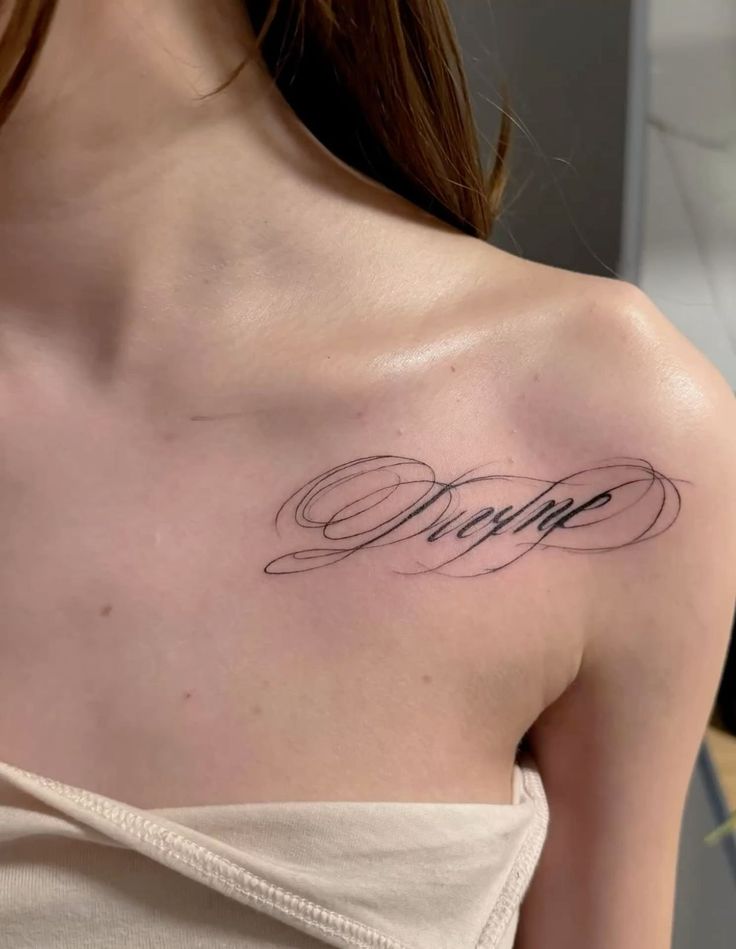
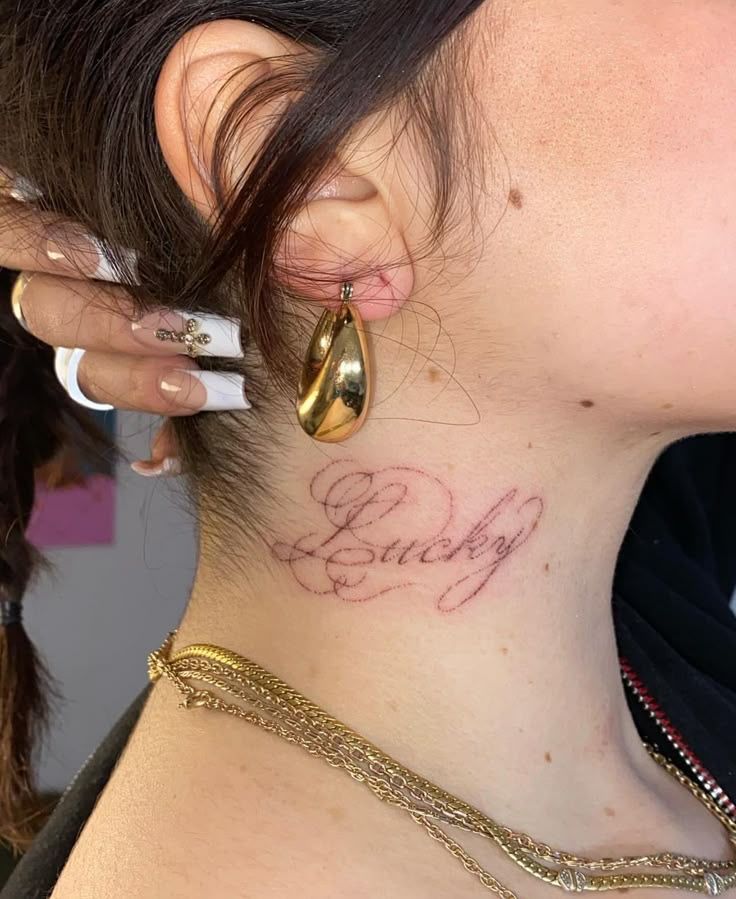
Your tattoo is a personal billboard, so begin by sitting down and asking, “What do I want to say?” Maybe you want a modern minimal look that whispers elegance, or a classic blackletter that commands attention. You can explore extensive categories like Calligraphy, Cursive, Gothic, or Fancy to see what resonates with you (FontSpace). If you love a strong vintage appeal, consider designs by Billy Argel Fonts or Denustudios, like “Ananda Black” or “Lucy Said Ok.”
Choose a font family
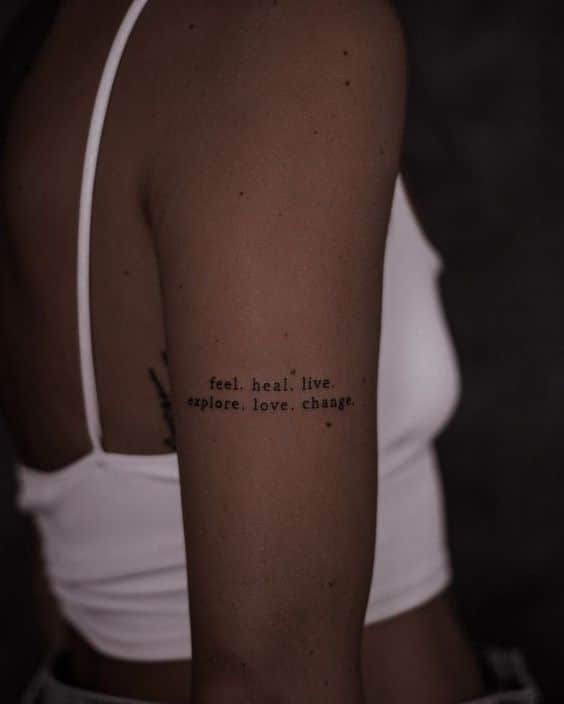
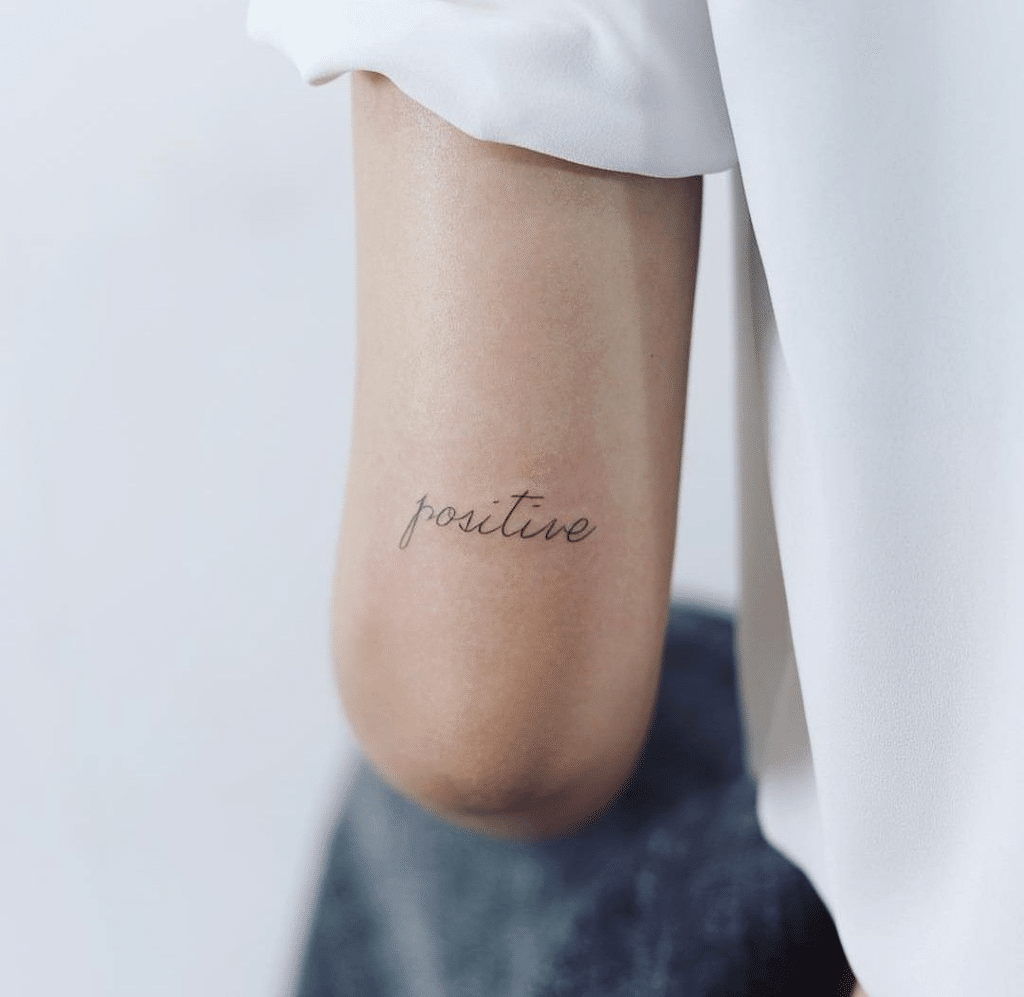
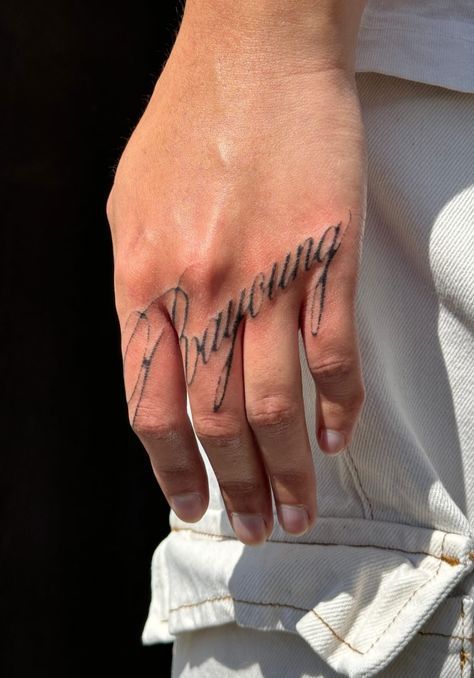
Once you know your overall style, it’s time to hone in on specific font families. Blackletter fonts are timeless for religious or memorial pieces and look fantastic on larger areas. Handwritten Script, on the other hand, is popular for sentimental quotes or names (FontsArena). If you want that old-school typewriter look, go for something with uneven letters that feel literary. Minimalistic Sans Serif fonts are perfect if you prefer a subtle, modern vibe. And for the bold and energetic spirit, Graffiti fonts deliver creativity in spades.
Keep size and clarity
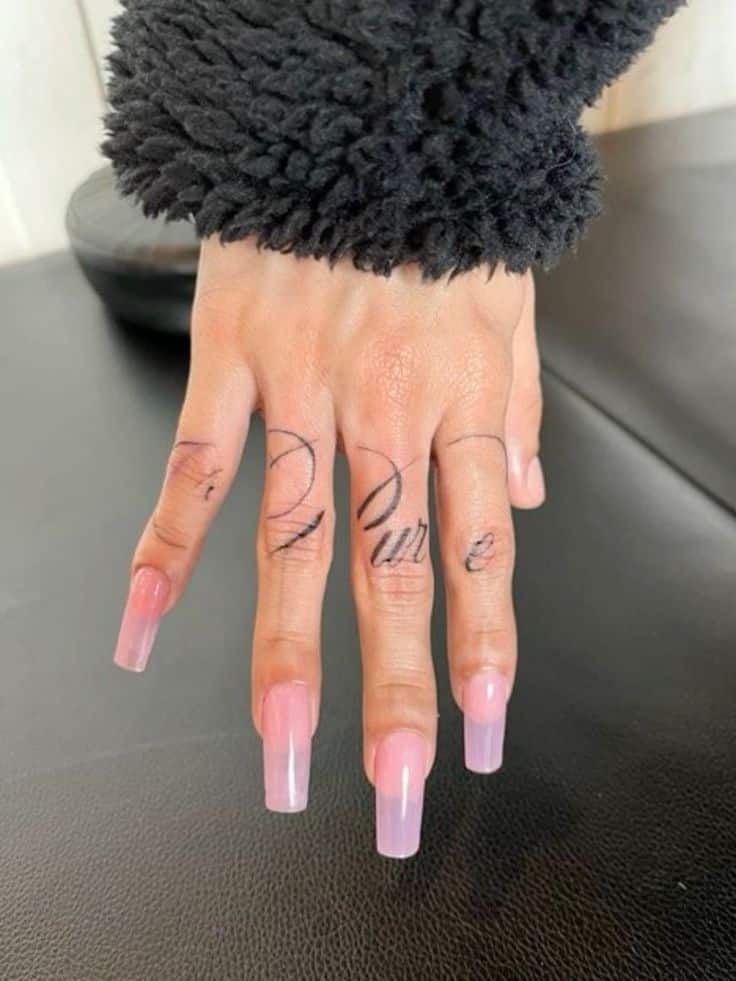
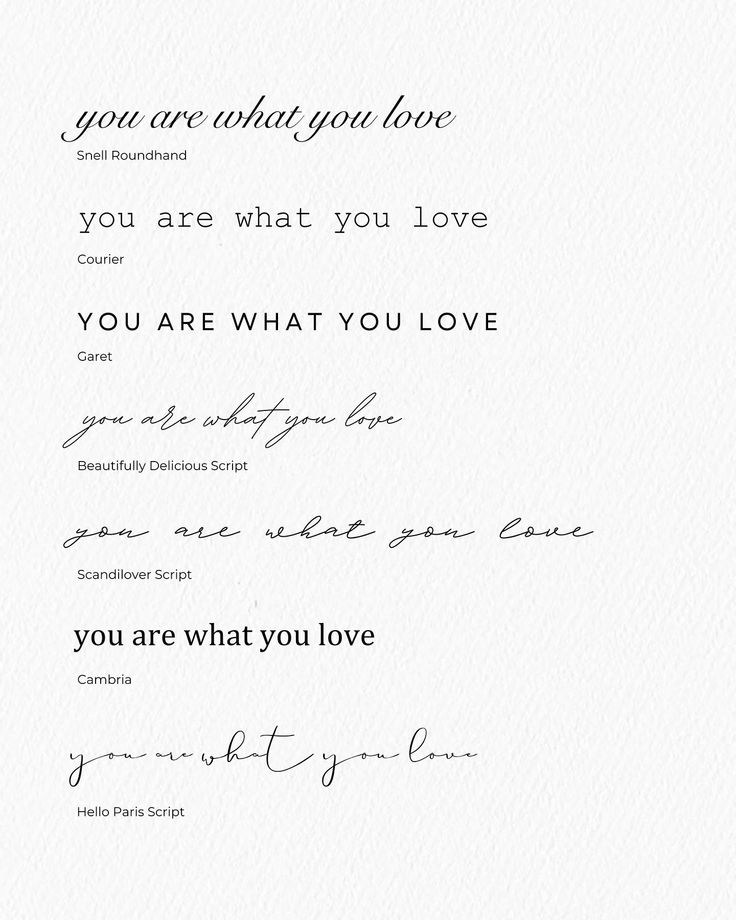
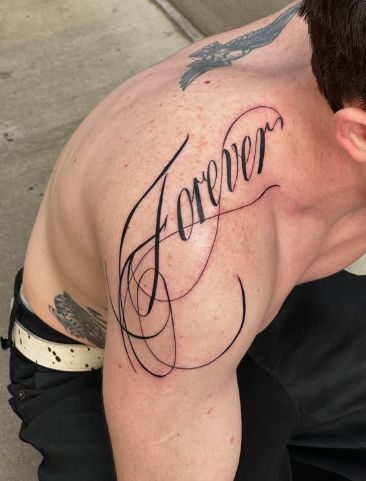
Remember, tattoos evolve with your skin over time. For your lettering to stay sharp, larger fonts and simpler designs are the way to go. Oversized or clean-line scripts typically hold their detail better than ultra-ornate styling, which can blur as your tattoo matures (Magnum Tattoo Supplies). Placement also matters. Areas like arms, legs, and back tend to retain crispness longer than spots prone to friction or stretch.
Test and refine
Print out samples or even sketch your chosen fonts to see how they look on your body’s contours. Adjust the font size and spacing until you’re happy with the balance. You can also type out inspirational phrases, like “SPENDING TIME WITH INNERSELF BONDING WITH MY SOUL,” to gauge whether the mood of the font matches your message (FontSpace). Don’t be shy about experimenting—this is your chance to ensure the font you pick hits the right emotional note.
Consult a professional
After you’ve narrowed down your top contenders, show them to your tattoo artist. Pros have a keen eye and can highlight design tweaks to make your tattoo age better. They might suggest bold outlines, spacing adjustments, or strategic shading. Want a cursive font with a personal twist? A solid artist can customize it to flow perfectly across your ribs, forearm, or wherever you plan to ink.
Your questions answered
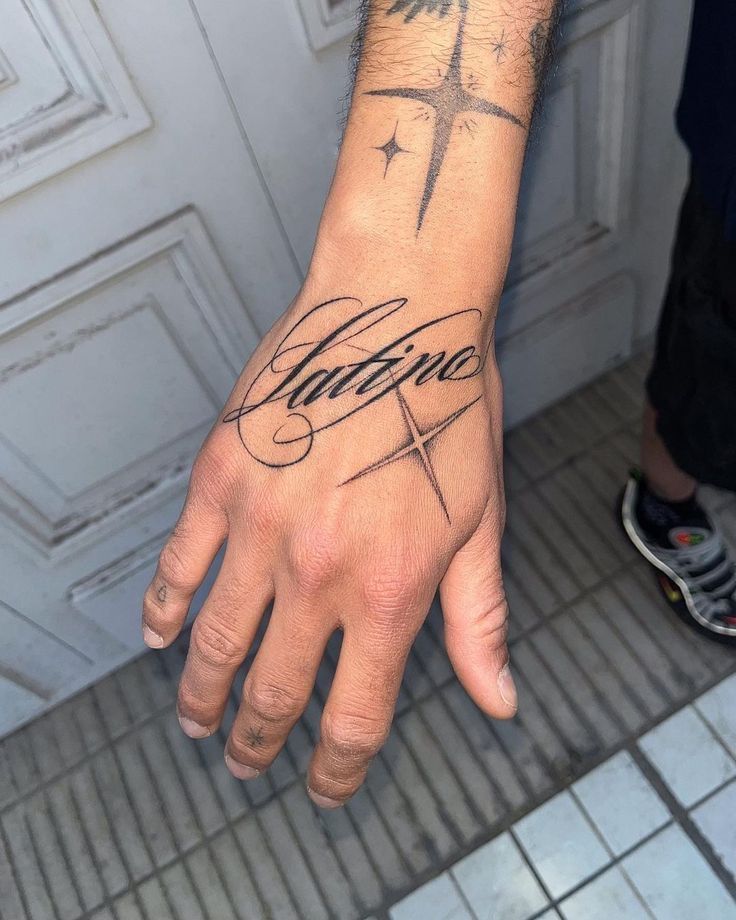
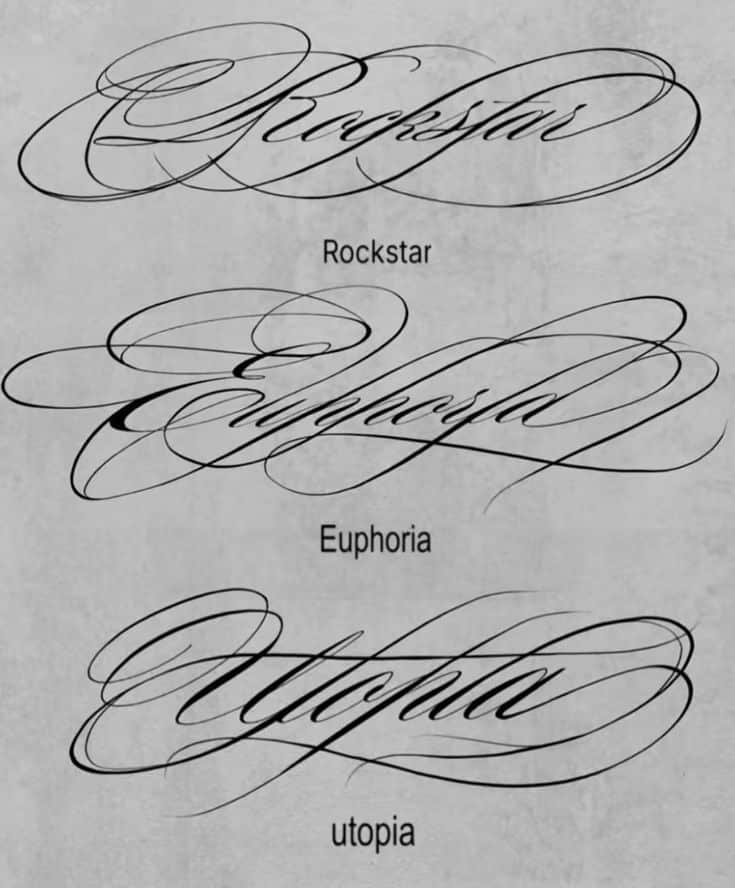
2. How do I make sure the font stays legible over time?
Go with simpler designs and opt for a slightly larger font size. Complex or tiny letters may lose clarity and blend together as your skin changes.
3. Which font style is best for names or quotes?
Handwritten Script and Minimalistic Sans Serif are two popular choices. Both capture your message cleanly, especially if the text is short or emotional.
4. What if I want a more unique style than standard fonts?
Collaborate with an artist to fuse different elements, like a custom swirl in a Gothic letter set or a personalized flourish in a calligraphy font.
5. Should I worry about where I place the font?
Placement plays a huge role in how your ink will look later. Areas with less friction and stretching, such as your upper arm or thigh, typically maintain sharper lines.
With these steps in your back pocket, you can feel confident choosing the best fonts for tattoos that will match your personal style and stand the test of time. Now’s the moment to refine, consult your tattoo artist, and finalize a design that will look great today, tomorrow, and for years to come. Enjoy the journey.